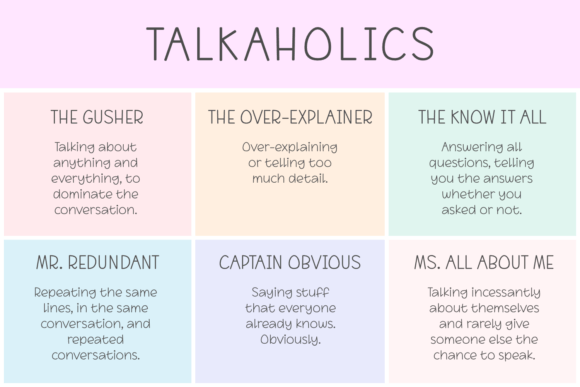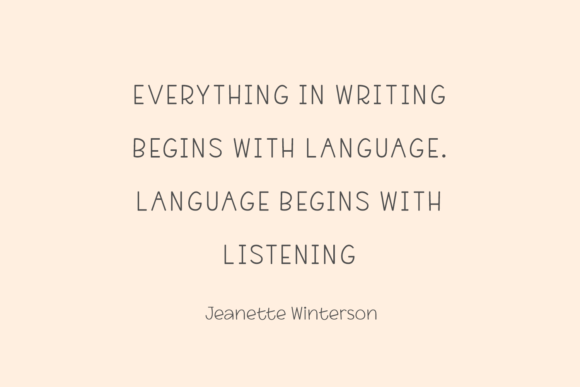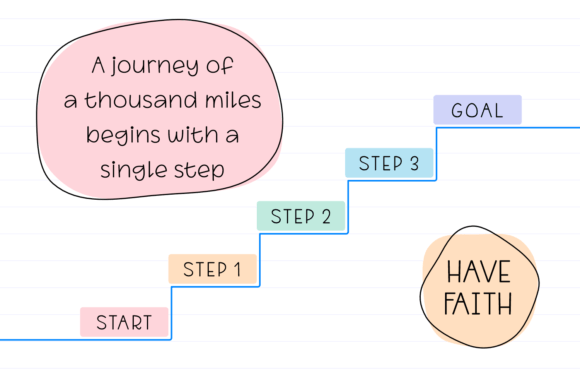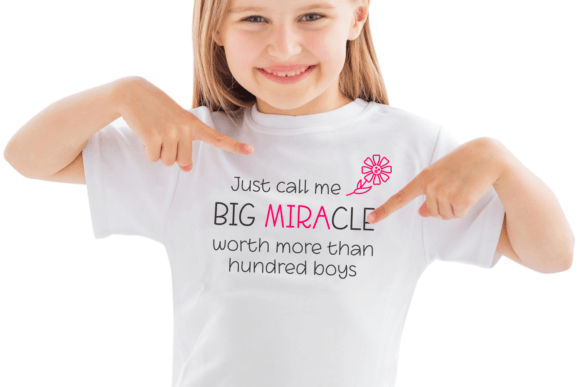
Introducing Don’t Talk Too Much Font: The Sweetest Addition to Your Creative Arsenal
Are you tired of using the same old fonts in your creative projects? Look no further than Don’t Talk Too Much, a delightfully unique handwritten font that’s sure to add a dash of sweetness to your endeavors. With its captivating minimalist charm, this font has the power to immerse your work in an irresistible atmosphere of enchantment, making it perfect for designers and crafters looking to elevate their game.
The Perfect Blend of Simplicity and Elegance
Don’t Talk Too Much font exudes a simplicity that harmonizes across various applications, making it an incredibly versatile addition to your font collection. Its clean lines, subtle curves, and delicate strokes create a visually appealing aesthetic that’s both charming and memorable. Whether you’re working on uplifting invitations, custom-made cards, informal school notes, or eccentric to-do lists, this font is the perfect complement to add an electrifying spark to your creative dynamism.
A Handmade Charm that’s Hard to Resist
Lovingly crafted, Don’t Talk Too Much font infuses your projects with a playful yet minimalist essence that’s sure to captivate your audience. Its handmade charm is evident in every letter, with a unique character that sets it apart from more generic fonts. This font is perfect for designers and crafters who want to add a personal touch to their work, creating a sense of warmth and approachability that’s hard to resist.
Don’t Talk Too Much font is a creative powerhouse, offering endless possibilities for designers and crafters. Use it to:
- Create stunning invitations for special occasions, such as weddings, birthdays, or baby showers
- Design custom-made cards for loved ones, adding a personal touch to your messages
- Develop eye-catching to-do lists, planners, or journals that are both functional and visually appealing
- Add a touch of whimsy to your social media graphics, blog posts, or website headers
Why Choose Don’t Talk Too Much Font?
So, what sets Don’t Talk Too Much font apart from other fonts on the market? Here are just a few reasons why designers and crafters love this font:
- Unique character: Don’t Talk Too Much font has a distinctive, handmade charm that’s both charming and memorable
- Versatility: This font harmonizes across various applications, making it perfect for a wide range of creative projects
- Easy to read: Despite its delicate nature, Don’t Talk Too Much font is surprisingly easy to read, even at smaller sizes
- Customizable: Experiment with different colors, textures, and styles to make this font your own
Get Ready to Fall in Love with Don’t Talk Too Much Font
Tips and Tricks for Using Don’t Talk Too Much Font
To get the most out of Don’t Talk Too Much font, here are a few tips and tricks to keep in mind:
- Pair with bold fonts: Combine Don’t Talk Too Much font with bold, contrasting fonts to create visual interest and hierarchy
- Experiment with colors: Try pairing Don’t Talk Too Much font with bright, pastel colors or rich, jewel-toned hues to add depth and personality
- Add textures and patterns: Mix and match different textures and patterns to give your designs a unique, handmade feel
With its unique character, versatility, and handmade charm, Don’t Talk Too Much font is the perfect addition to any designer’s or crafter’s toolkit. So go ahead, give it a try, and see the magic that happens when you add a dash of sweetness to your creative endeavors!